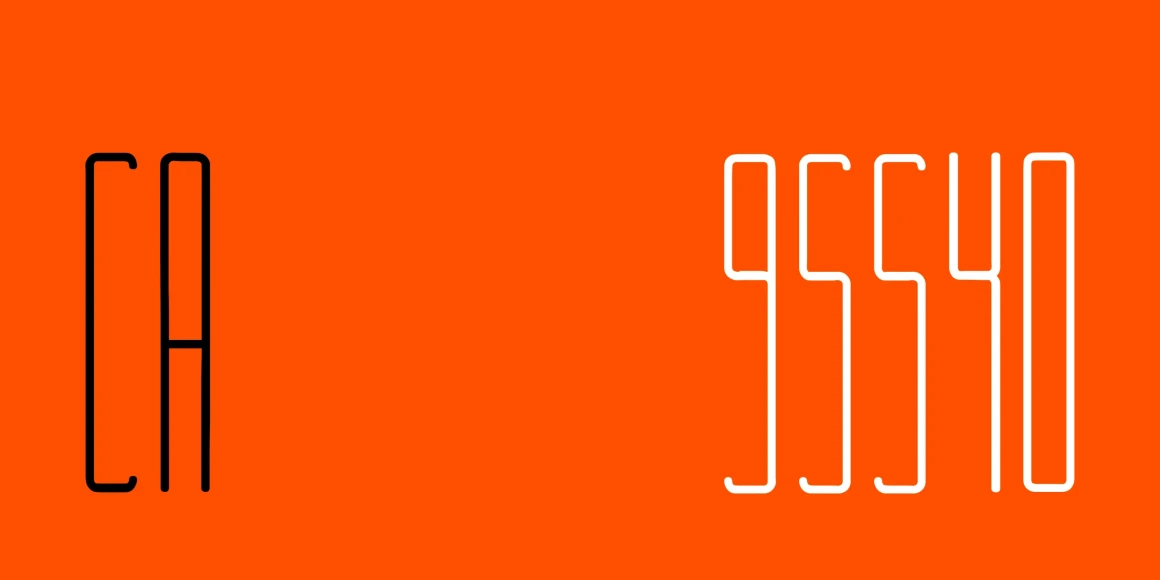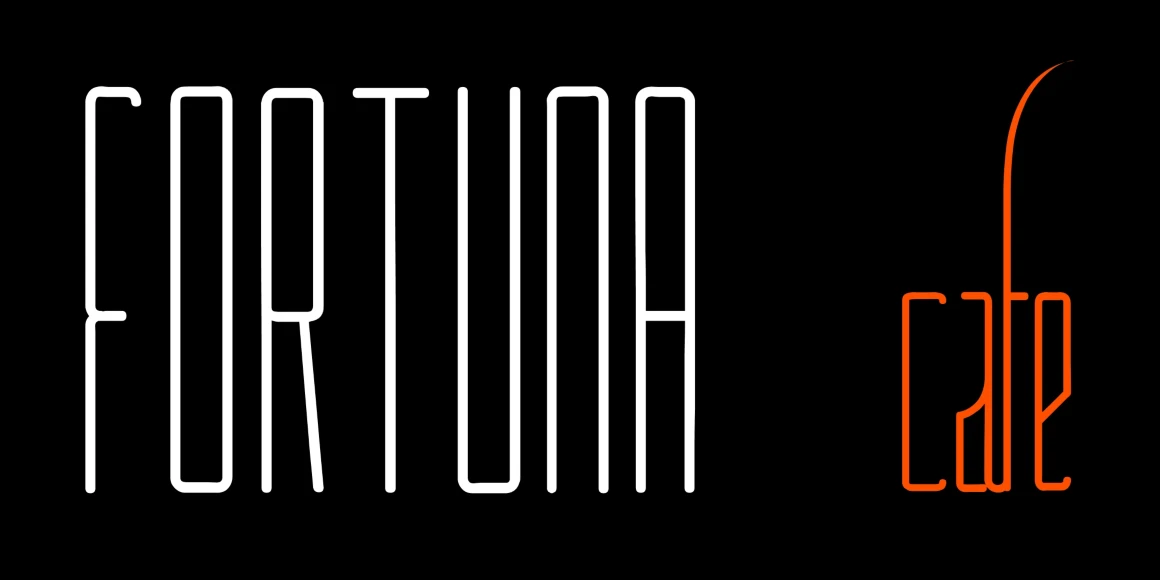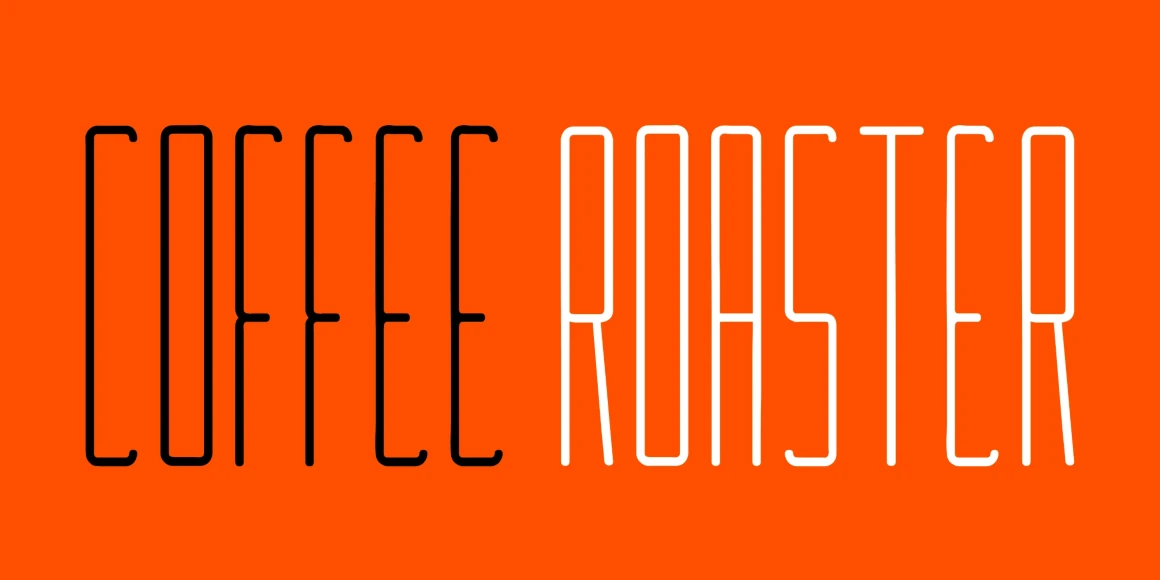
Lunga
Lunga is a strikingly narrow display font family with a refined, ornamental edge. Its dramatic vertical rhythm, elongated forms, and sweeping ligatures give it a sense of elegance and restraint — while its flourished alternates add an experimental flair when desired. Whether kept minimal or dialed up with decorative alternates and swashes, Lunga makes a strong statement for fashion brands, luxury packaging, or editorial layouts calling for distinction and drama.
Lunga Exacta
Lunga Extras
Lunga Real Ligada
Lunga Versalita